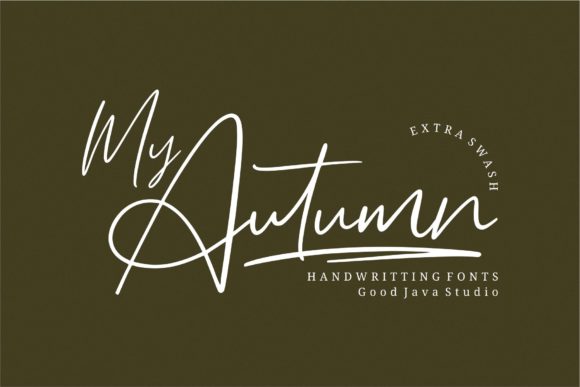
My Autumn Font
My Autumn Font is perfect for seasonal branding campaigns, harvest festival promotions, cozy café identities, pumpkin spice product packaging, fall wedding invitations, and warm hospitality venue communications. This nostalgic typeface excels in autumn photography studios, seasonal farmers markets, Thanksgiving event materials, and any application where autumnal warmth and seasonal comfort create meaningful connections with audiences embracing fall's cozy atmosphere.
What makes My Autumn Font so exciting is its remarkable ability to capture the warm nostalgia and golden beauty of autumn through letterforms that seem to rustle like fallen leaves in crisp fall air. The font features organic curves, harvest proportions, and seasonal character shapes that evoke the comforting embrace of sweater weather and the golden glow of autumn afternoons. Its cozy presence makes it perfect for brands celebrating seasonal traditions and autumnal comfort.
My Autumn Font comes in a seasonal family including Light, Regular, Medium, Bold, and Harvest weights. Each style features complete uppercase and lowercase character sets, seasonal symbols, autumn numerals, and cozy punctuation marks. The font family also includes leaf alternates, harvest ligatures, and fall variations that allow designers to create truly warm communications with seasonal appeal and professional autumn quality.
This heartwarming typeface transforms communications into celebrations of autumn's golden beauty and seasonal comfort. My Autumn Font Free Download provides seasonal businesses and cozy brands with essential typography that honors fall traditions while serving contemporary seasonal communication needs. Whether you're developing brands for autumn experiences, creating materials for harvest celebrations, or designing promotional content for fall-themed businesses, this font delivers authentic seasonal resonance with golden warmth.
The font's autumnal character makes it particularly effective for seasonal restaurants, fall event planners, harvest farms, and cozy lifestyle brands. Its warm readability ensures that My Autumn Font communicates clearly while maintaining its distinctive seasonal personality. The font's ability to evoke nostalgia and seasonal comfort makes it an invaluable maple leaf for any project seeking to celebrate autumn heritage and connect with audiences through the timeless appeal of fall colors, seasonal coziness, and the golden beauty of autumn's transformative embrace and harvest celebrations.